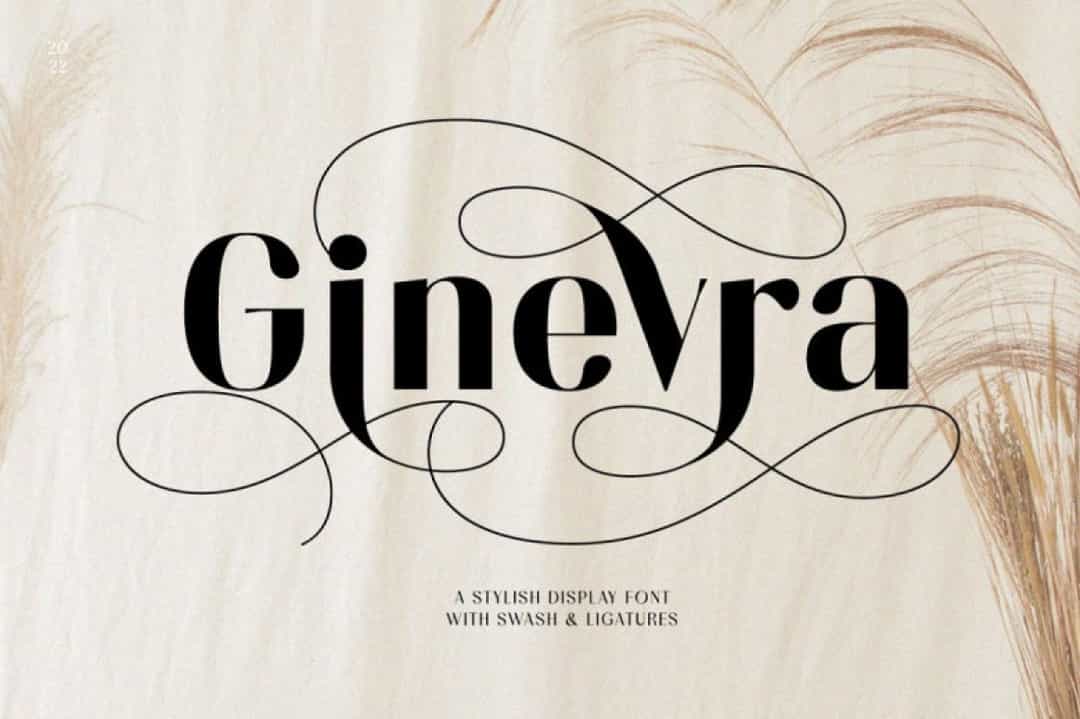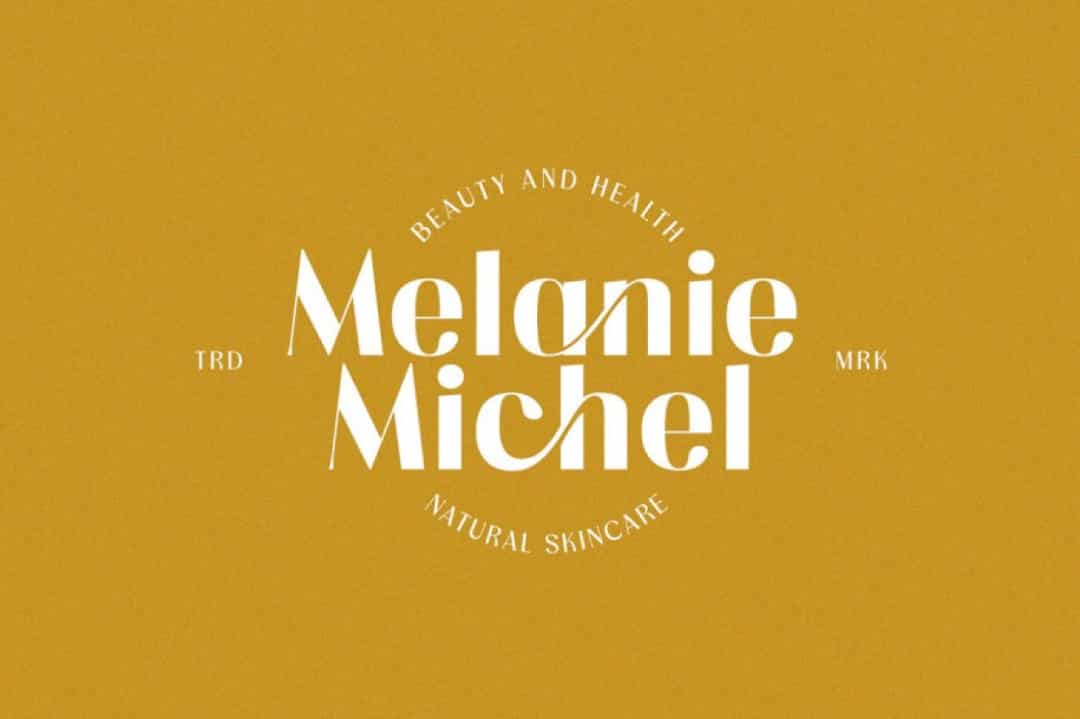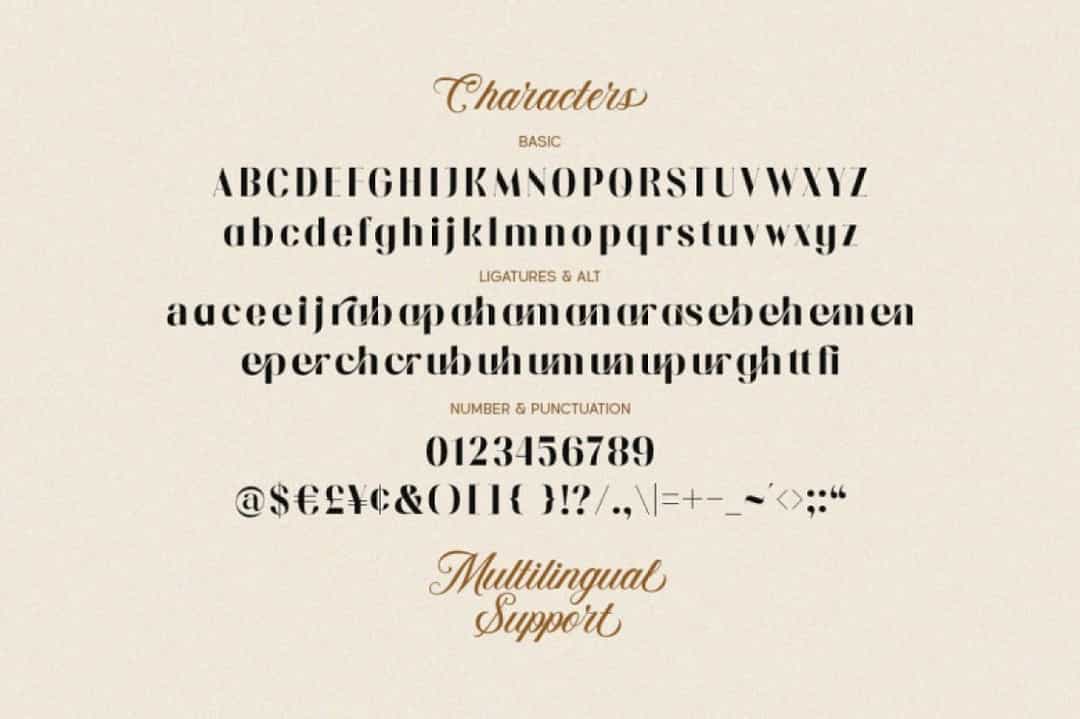
Ginevra Font is an elegant sans serif with swashes and ligatures that stands out due to its striking high contrast between letters, as well as its eye-catching swashes that set it apart from others.